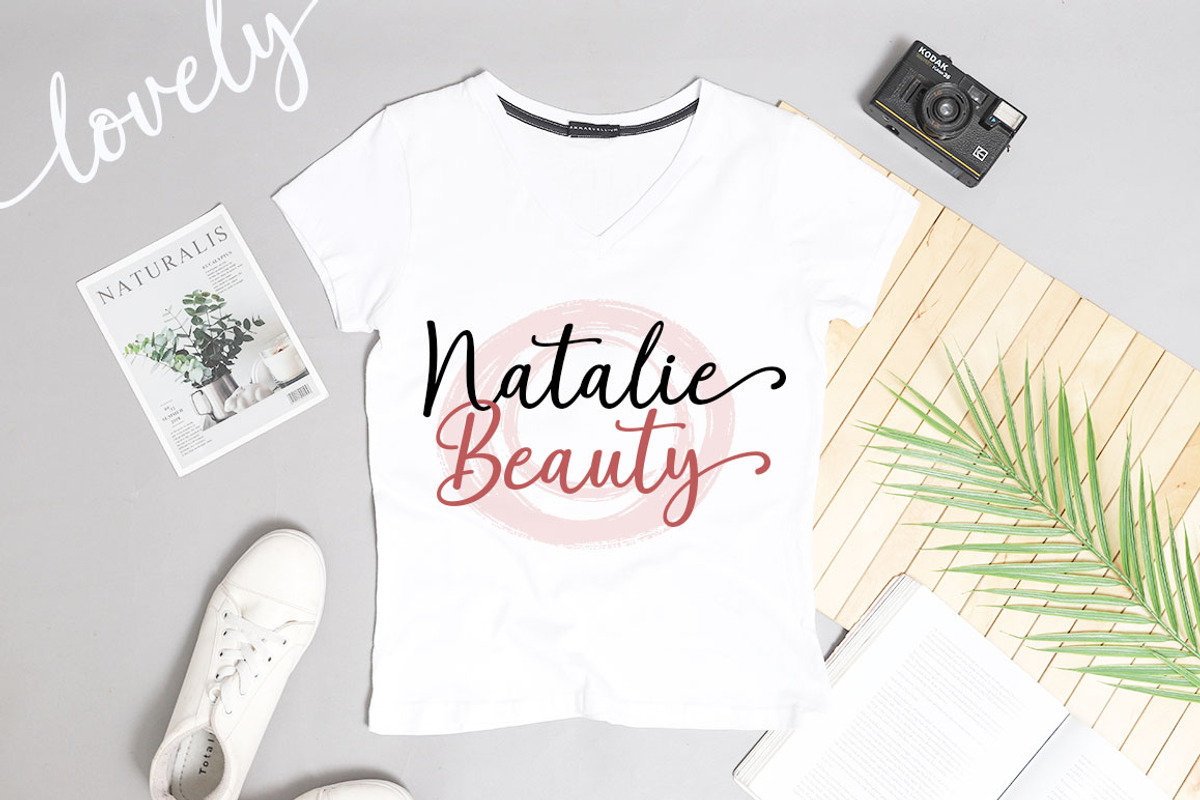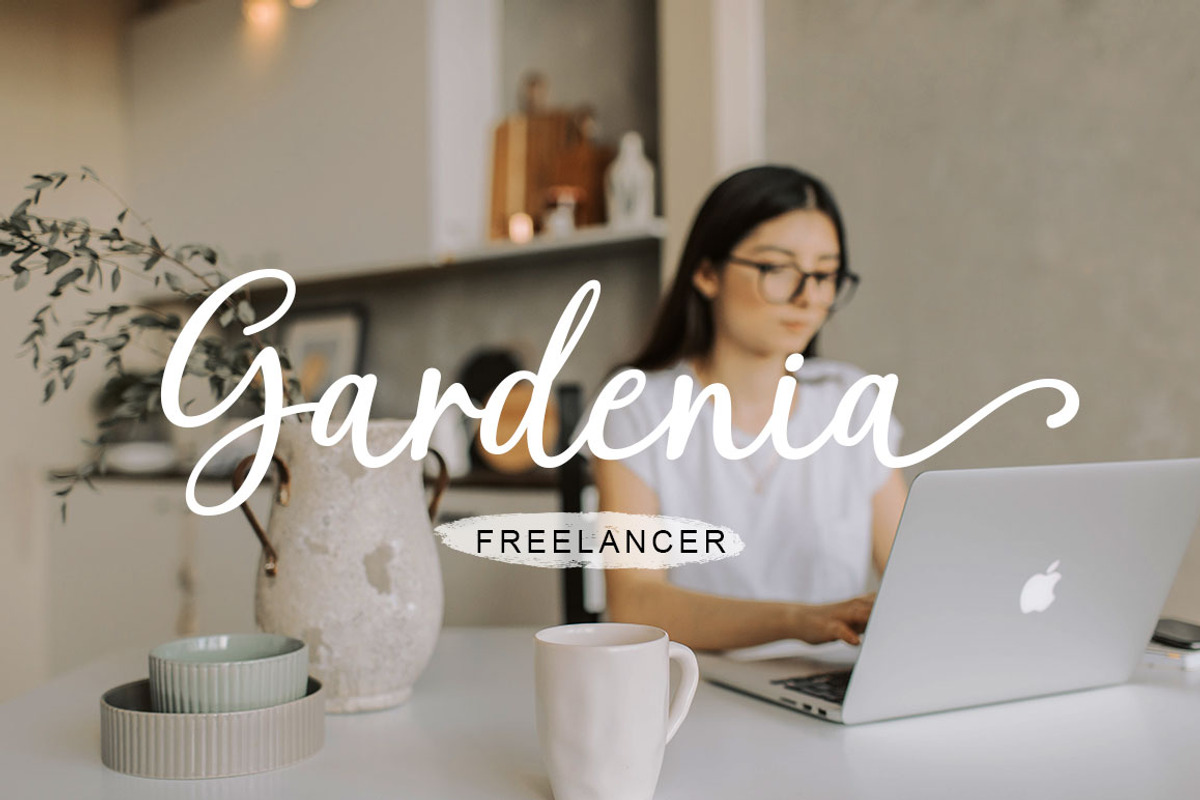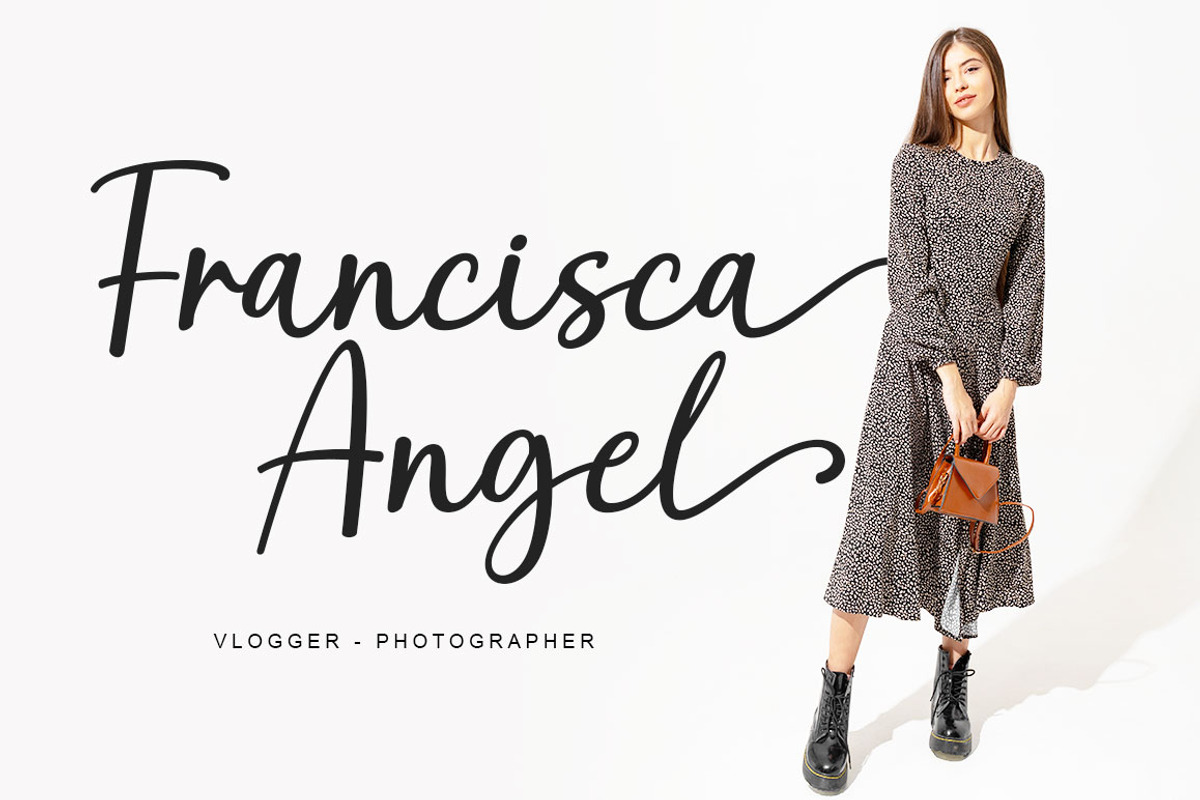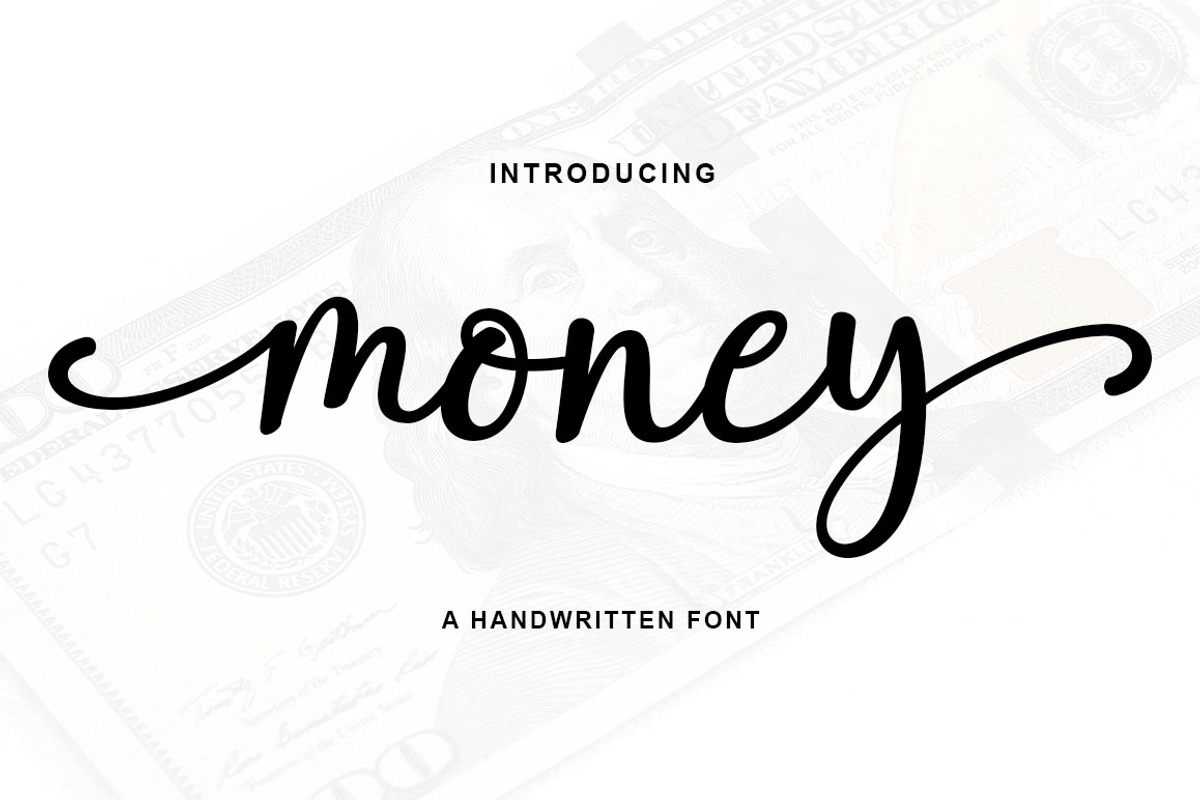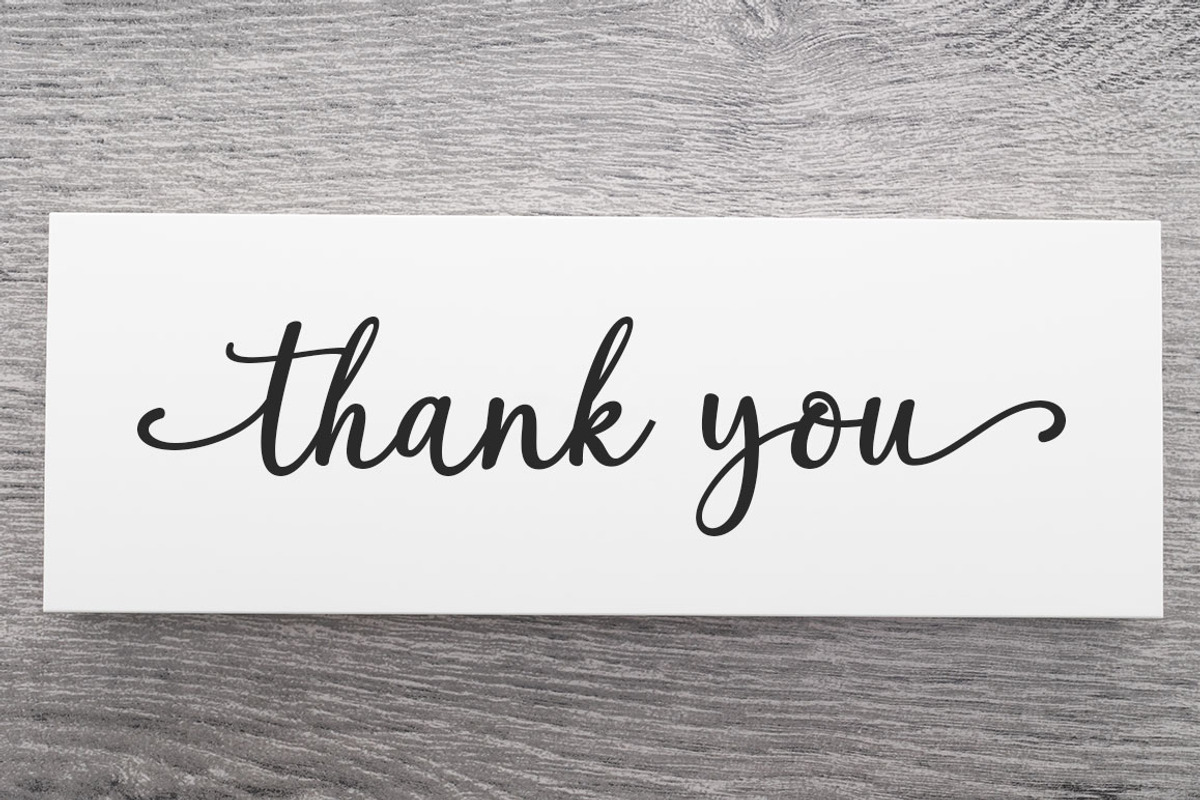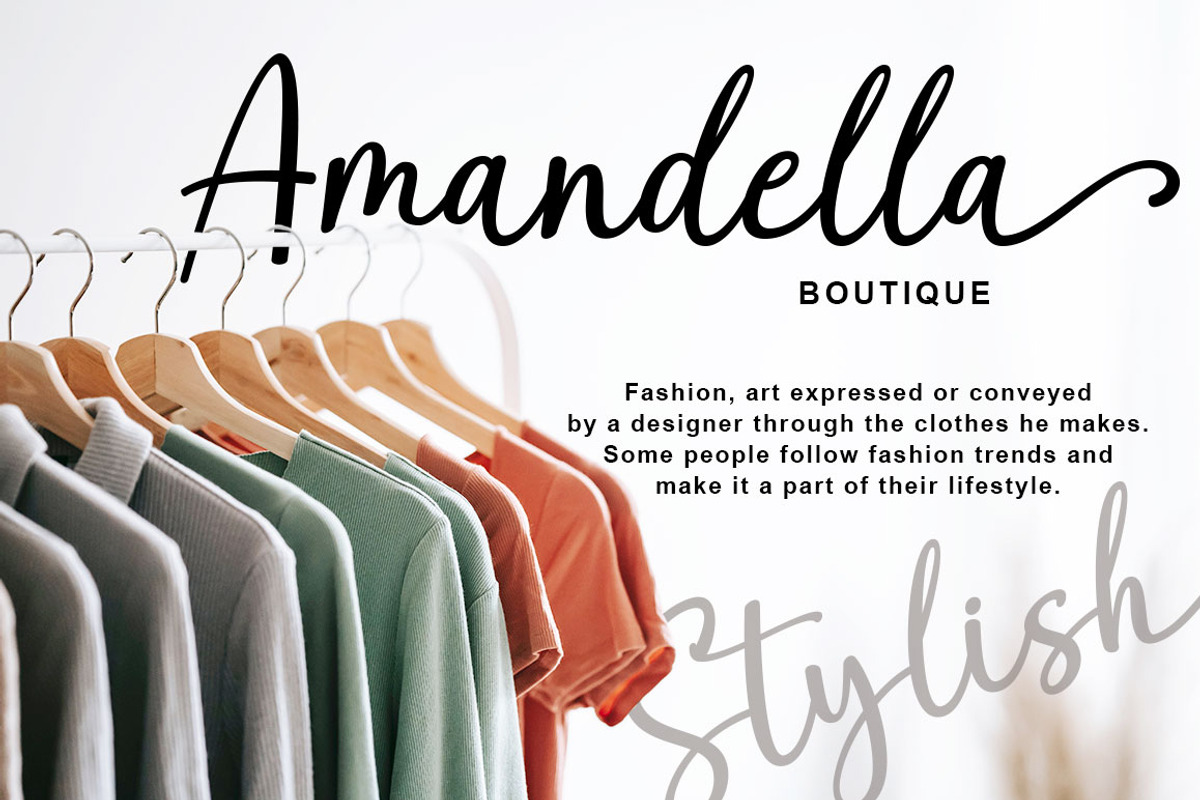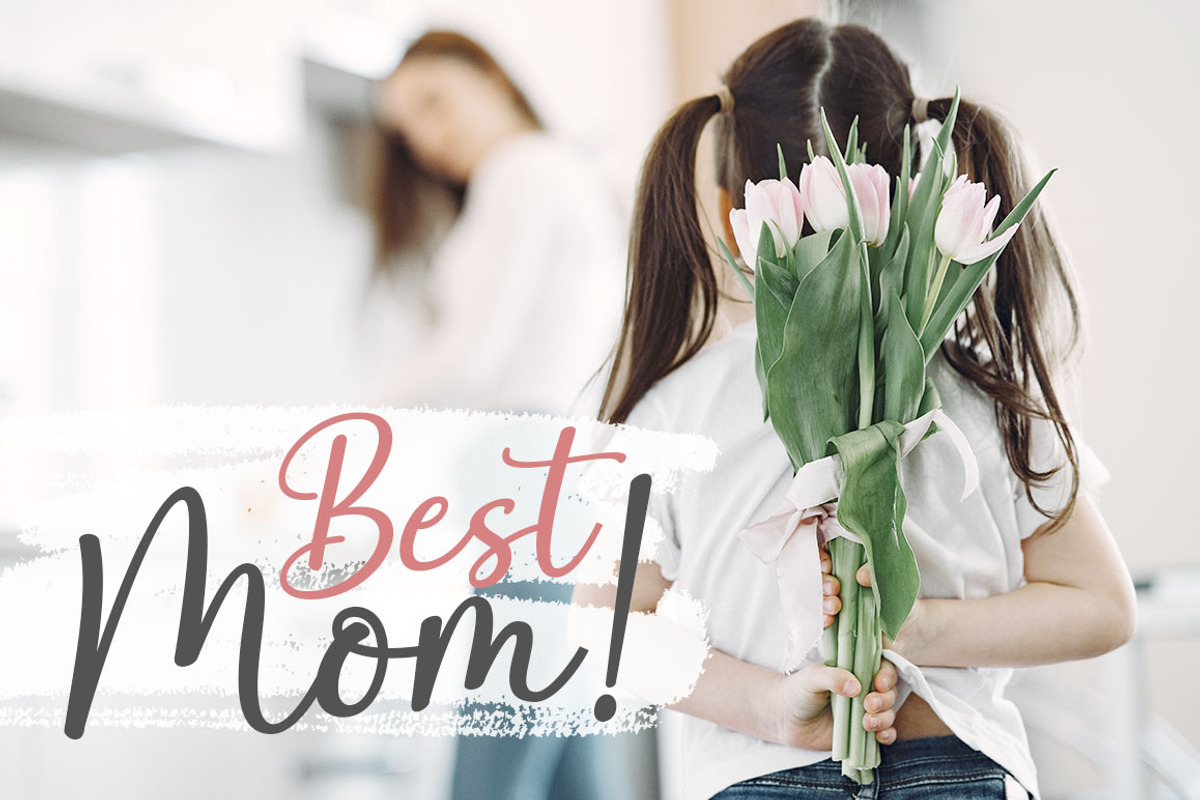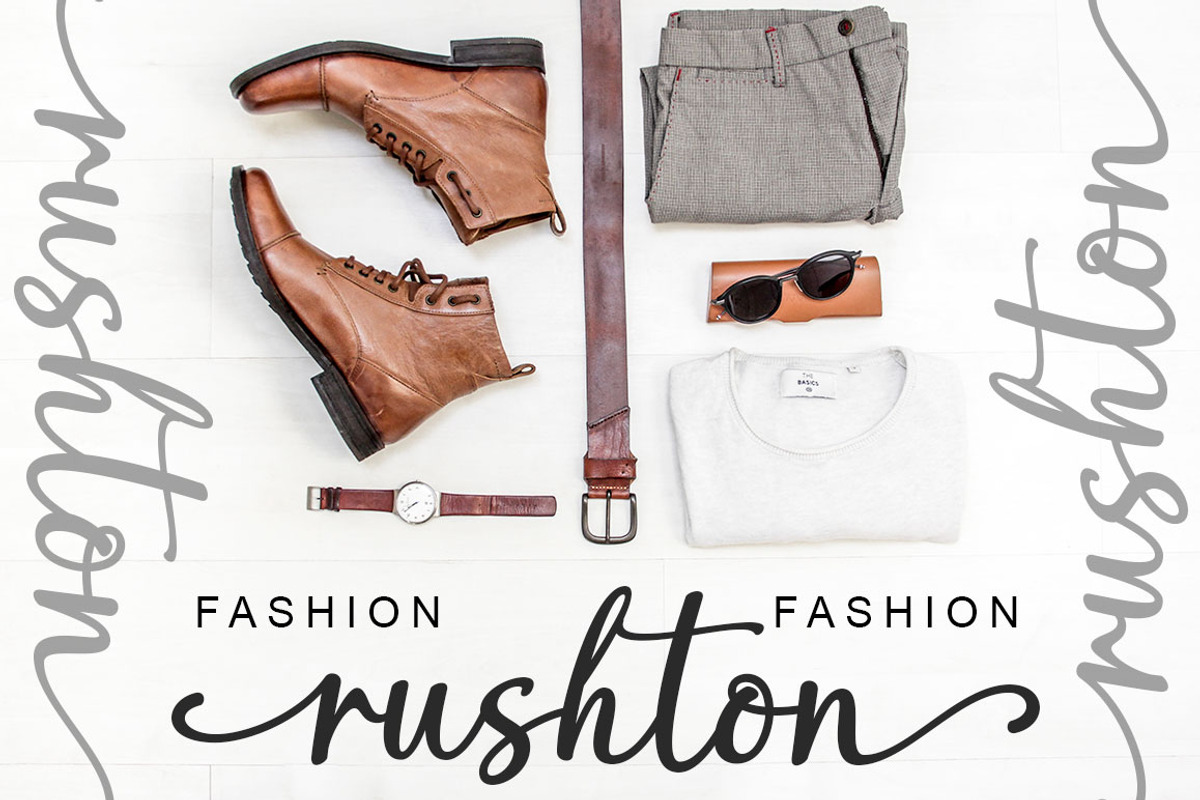
Money Script
Money Script is a new modern script font with an irregular base line. Trendy and feminine style. mettona looks beautiful on wedding invitations, thank you cards, quotes, greeting cards, logos, business cards and more. Perfect for use in ink or watercolors. Regarding initial and final letters, alternative support and many languages.